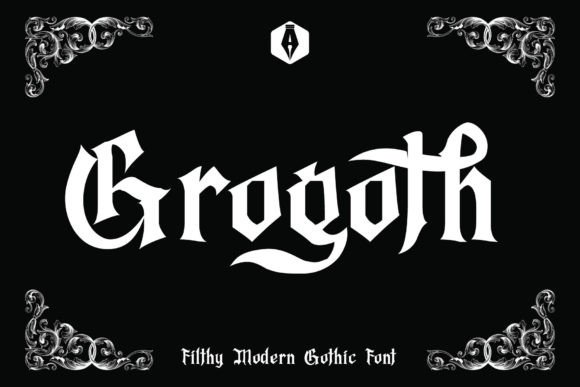
Welcome to the world of Grogoth, a captivating odyssey of bold strokes and elegant curves that will take your designs to unparalleled heights. Inspired by the grandeur of Blackletter, Grogoth is a modern masterpiece that combines tradition and innovation, strength and subtlety.
Step into the realm of Grogoth and unlock a universe of creative possibilities. With its edgy angles and fluid lines, Grogoth is the perfect companion for music album covers that command attention and demand to be heard. Create tattoo logos that are as captivating as the ink that etches them onto the skin. Design whiskey labels that ooze sophistication and leave a lasting impression. Craft pomade packaging that exudes strength and masculinity.
Grogoth is more than just a font; it's a conduit for your imagination, a tool that empowers you to bring your creative visions to life. Whether you're a seasoned designer or just starting your journey into the world of typography, Grogoth is the perfect companion for your creative endeavors.
Don't let your designs settle for mediocrity. Embark on a typographic adventure with Grogoth and let your creativity soar. Unleash the power of Grogoth and witness the transformation of your designs.